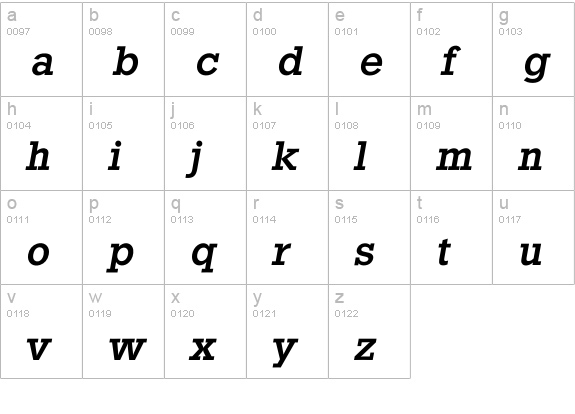
Istafford Medium is a balanced, medium-weight variant in the Istafford typeface family \xE2\x80\x94 well suited to sub-headlines, navigation, and balanced editorial work.
Introducing Istafford Medium, a sleek and sophisticated font that effortlessly combines elegance with modernity. This versatile typeface is perfect for a wide range of design projects, from branding and advertising to editorial layouts and web design. With its clean lines and balanced proportions, Istafford Medium exudes professionalism and refinement. Each letter is meticulously crafted, ensuring legibility and a harmonious flow that captivates the reader's attention. The medium weight strikes the perfect balance between boldness and subtlety, making it ideal for both headlines and body text. One of the most remarkable features of Istafford Medium is that it is free. Yes, you heard that right - this exceptional font is freely available to download at FontsMarket.com. This means that you can enhance your creative endeavors without breaking the bank. Whether you're a professional designer or a passionate enthusiast, Istafford Medium offers a high-quality and cost-effective solution to elevate your typography game. Furthermore, Istafford Medium's extensive character set includes a wide range of international symbols, punctuation marks, and special glyphs, allowing you to effortlessly communicate your message with clarity and precision in multiple languages. So why wait? Give your designs a touch of sophistication and modernity with Istafford Medium. Download it for free at FontsMarket.com and unlock the limitless creative possibilities that await you.